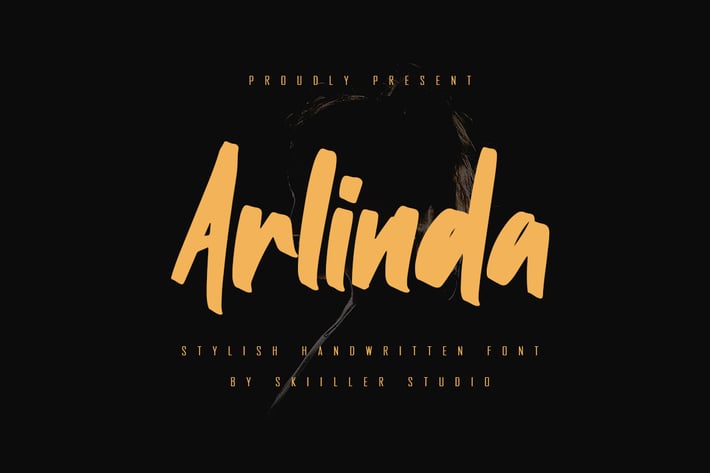
Arlinda - Stylish Handwritten Font
Arlinda Handwritten Display Font. It looks beautiful on a variety of designs requiring a personalized style, such as wedding invitations, thank you cards, weddings, greeting cards, logos and so on. This font is PUA encoded which means you can access all of the glyphs and swashes with ease!